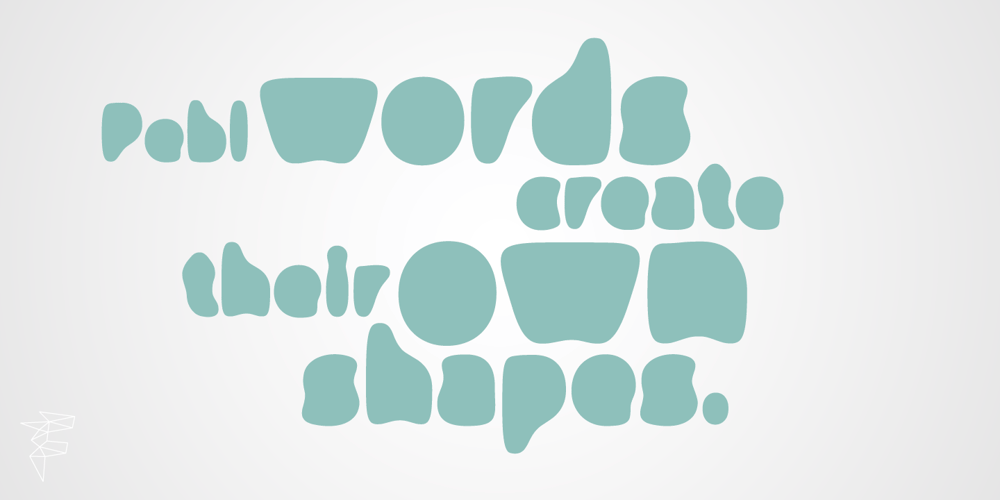
Pebl Font Family was designed by Ian Clewett and published by Formation Type Foundry. Pebl contains 1 styles and family package options. Pebl is inspired by the naturally simplified and smoothed shapes of beach pebbles. The result is a bold, super-rounded display typeface. It’s pared back to just the most basic, smooth outlines without counters, for a friendly and organic look. It’s ideal for logos, branding, headlines or just abstract type shapes in print, in displays, on the web, on T-shirts, wherever. Enjoy.